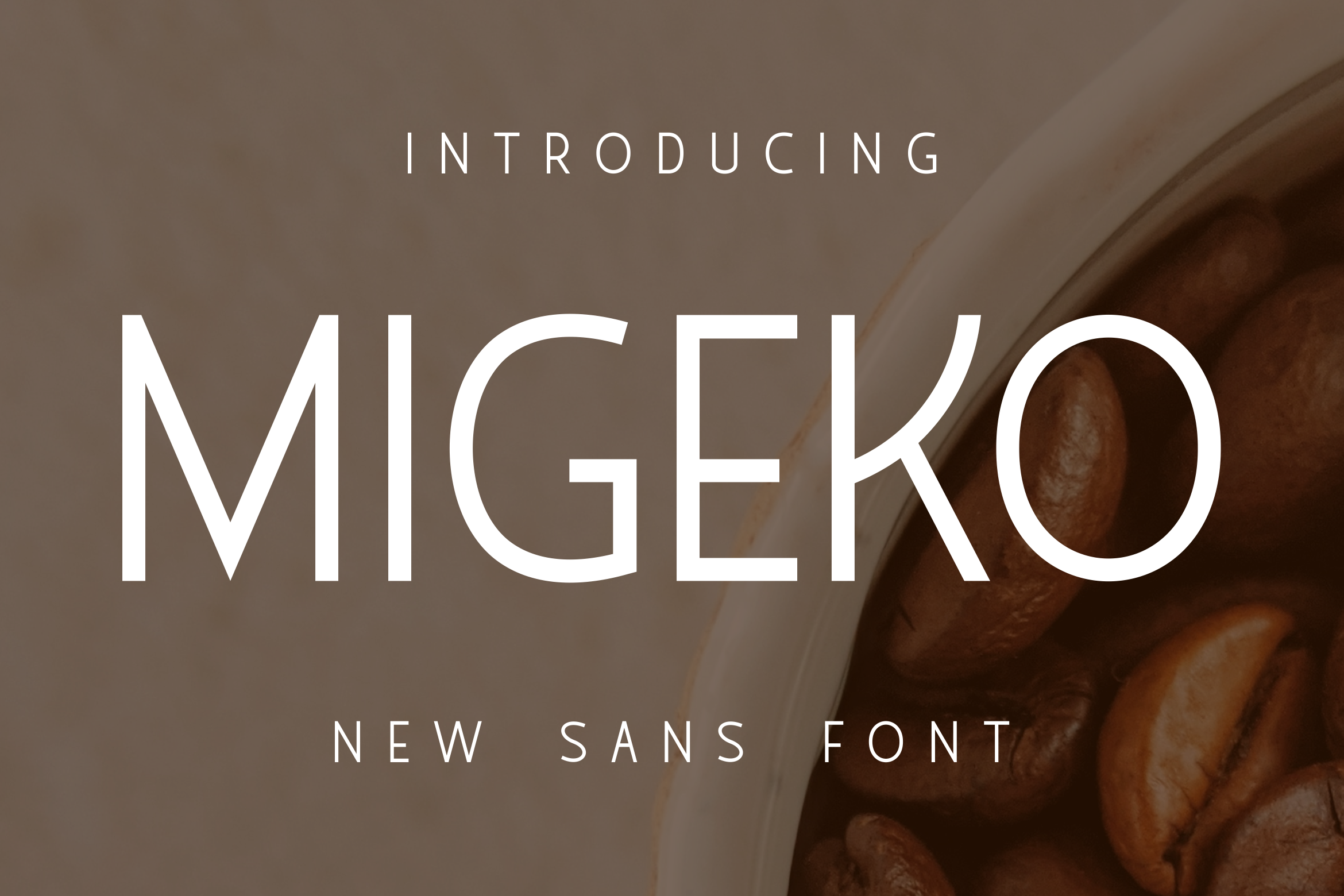
Migeko Sans Slim Font
Introducing a refreshed interpretation of the classic sans serif font, where an artistic freedom has been embraced. Special attention has been given to the letter K, employing innovative enhancements for a unique appeal. Moreover, deviation from uniform sizing has been implemented purposefully to provide a more organic and natural aesthetic. This reimagined font is perfect for those seeking a touch of nonconformity and a break from the standard mold. Unleash your creativity with this chic and modern sans-serif masterpiece.